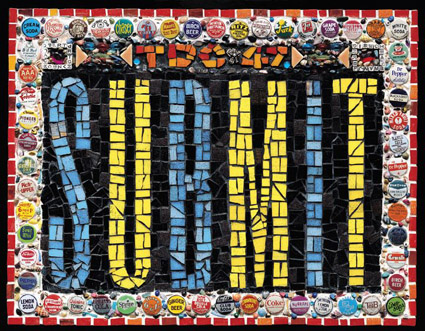
The winners have long been chosen, but now you get a chance to see them for yourself, as the Type Directors Club TDC47 exhibition kicks off in New York.
Last week the winners of the Type Directors Club's annual competition -- TDC47 -- were shown for three days during the HOW Design Conference in San Francisco. This coming week, the TDC47 exhibition opens in New York. It showcases the best typographic designs of the past year.
Gail Anderson designed the TDC47 call for entries, including the "Submit" mosaic from the Call Mailer Poster.
Tracking Type Since 1954
The TDC competition has been an annual event since its inception in the early 1950s, during a typographic era very different from today. When the competition began, phototypesetting was just beginning to appear; virtually all type was set in metal, most of it on hot-metal typesetting machines but some of it still by hand. Today, metal type is a conscious anachronism, and even phototype has had its day and passed into the shadows. Almost all the type for the winning entries this year was set digitally, in easily available programs such as QuarkXPress and Adobe Illustrator.
TDC47, like its predecessors, was a competition in typography -- the art of using type in graphic design, whether in a magazine ad, in a book, in a video, or on a wine label. For the past four years, the main competition has been supplemented with a newer, smaller competition -- TDC2 -- for the best new typeface designs. While both competitions reflect what's new in the field of type and graphic design, and each year has a new set of judges, there's also a continuity that comes with the longevity of the Type Directors Club. In fact, the chair of next year's competition, TDC48, will be Klaus Schmidt, who helped found the club in the 1940s.
This year, I was chair of the type-design competition; Ronn Campisi chaired TDC47. The judges for TDC47 were Richard Baker, of "Premiere" magazine, Jonathan Hoefler, of the Hoefler Type Foundry; Gary Koepke, co-founder of Modernista!; Robynne Raye, co-founder of Modern Dog design studio; Wendy Richmond, educator and columnist for "Communication Arts"; Paul Souza; and Lynn Staley, of "Newsweek." The judges for TDC2 were Robert Bringhurst, author of "The Elements of Typographic Style"; Tobias Frere-Jones, a type designer for the Hoefler Type Foundry; Helen Keyes, creative director at Enterprise IG in New York; and Carol Twombly, former type designer at Adobe. The TDC47 call for entries was designed by Gail Anderson, of "Rolling Stone," who is also designing the annual book that shows the winners. (I designed the call for entries for the type-design competition.)
Give My Regards to Bryant Street
The official opening of the TDC47 Show exhibition is in New York next Wednesday, June 27, and the exhibition will be on display from June 28 to August 15 at the Parsons School of Design (2 West 13th Street). But since TDC always has identical traveling exhibits in addition to the stationary one that's shown in New York, this year's show actually opened first in San Francisco.
It was shown as part of the HOW conference, although like several parts of the conference, which had grown so big that it was bursting the bounds of its hotel, the TDC exhibit was offsite. It found hits home in a large, well-lit space (a former photographer's studio) that's part of the newly opened south-of-Market office of ArtSource, a Seattle-based company that specializes in "digital media staffing" (that is, connecting companies with digital artists and other highly skilled workers). The ArtSource space was right next to South Park, the leafy oval that's at the heart of San Francisco's design district.
Although the flyers promoting the exhibit said, "See them before they go to New York," technically speaking the actual physical objects in the San Francisco show were not on their way to New York; they're headed to Kansas City for their next gig. A separate show with identical copies of the same winning entries stayed in New York, and that's what will be on the walls at Parsons next week. (This is why TDC asks the winners to send multiple copies of their work.) Another copy of the exhibit will be touring Europe this fall.
Seeing What's New
Some rule of the universe dictates that when you attend the opening of a exhibition of any kind, you never get a chance to look at the work on display; you're too busy schmoozing with the other people who came to the opening. Visiting an exhibit later, when it's not so crowded and you're not so distracted, gives you time to actually see what the winning entries look like.
The winning designs this year were diverse. There's no one "look" that the judges are searching for -- just the most successful use of type in the context of the given project. There was elegant, subtle typography and blaring, over-the-top lettering. The variety of typefaces used was tremendous, although after reviewing the show FontShop co-founder Joan Spiekermann observed, "Clearly the typeface of the year was Trade Gothic," having noted that the font was used by several winning entries. This year's show is smaller than those of years past -- not because there were any fewer entries, but because the TDC47 judges were harder than usual on their contemporaries and colleagues.
The annual, "Typography 22," which goes free to TDC members, will reproduce all the winners and will be a permanent record, as previous annuals have preserved the typography of their respective years. (The annual also includes judges' comments, which are not part of the exhibition.) Each year a different designer is asked to design the annual, which makes for variety in the presentation (and also, inevitably, controversy). When this year's annual comes out, you'll want to see the amazing things Gail Anderson does with bottle caps.
But there's no substitute for seeing the pieces in real life -- viewing the posters at full size, picking up the books and riffling through them. Come and take a look for yourself.